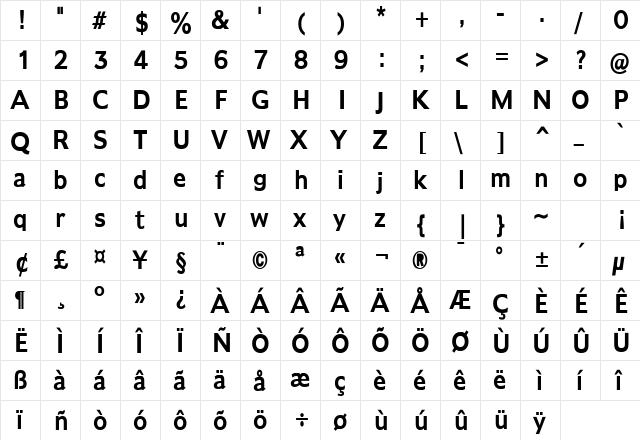
Adams Condensed Bold
Design Context for Adams Condensed Typeface
Adams Condensed is a composed and adaptable typeface that performs quietly and consistently across a wide range of design contexts. The heavy weight commands attention and anchors typographic hierarchies. The condensed width makes it efficient for tight spaces without sacrificing legibility.